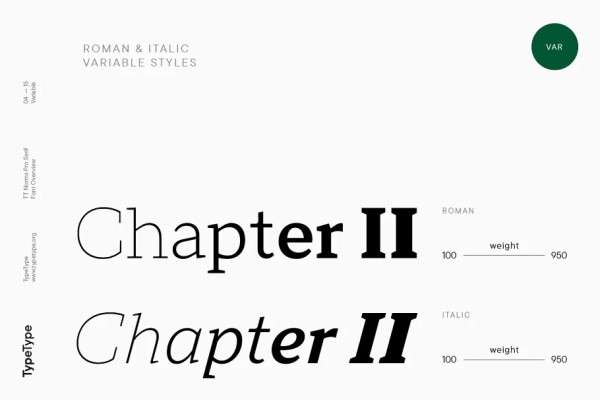
TT Norms Pro Serif Font
TT Norms Pro Serif Font is not just an add-on, it is a full-fledged serif based on the functional TT Norms® Pro sans serif.
We wanted the studio’s most versatile font to have a suitable font pair. TT Norms® Pro Serif is a antiqua that helps to solve most design problems. These fonts are made for each other, but can be used on their own or paired with other fonts.
TT Norms® Pro Serif is easily recognizable by slight contrast in proportions, axis tilt in ovals, width dynamics and diagonal contrast. Other characteristic features of the serif are the small contrast of strokes, open apertures and brutal serifs, the length of which decreases in proportion to the decrease in boldness.
Real italics have been added to the functional serif TT Norms® Pro Serif. The shape of glyphs in italic styles follows the shape of straight characters harmoniously, but differs enough from them to make printed text stand out.
The font has good readability, so it can be used even in small sizes. It can be used on websites, in printed materials, and for packaging design.
TT Norms® Pro Serif consists of 24 styles: 11 upright, 11 oblique, and 2 variable fonts, separate for roman typefaces and italics. The family has 29 OpenType features, including localization features. Each face has 1236 glyphs.